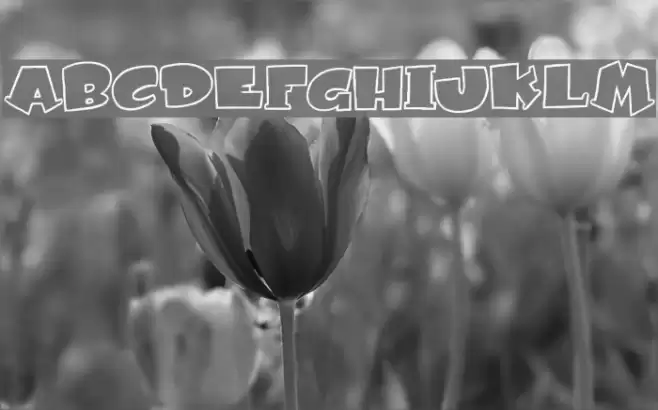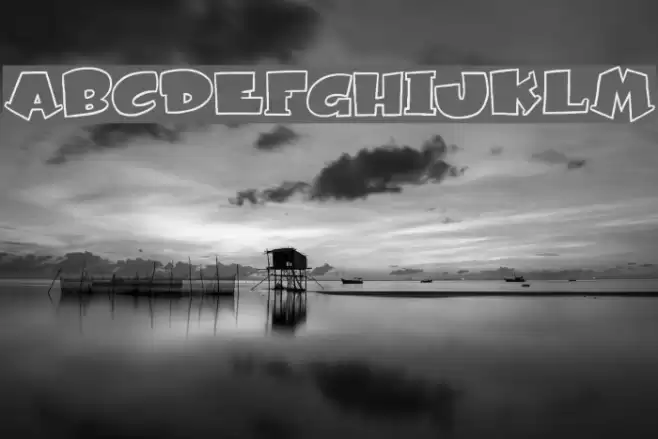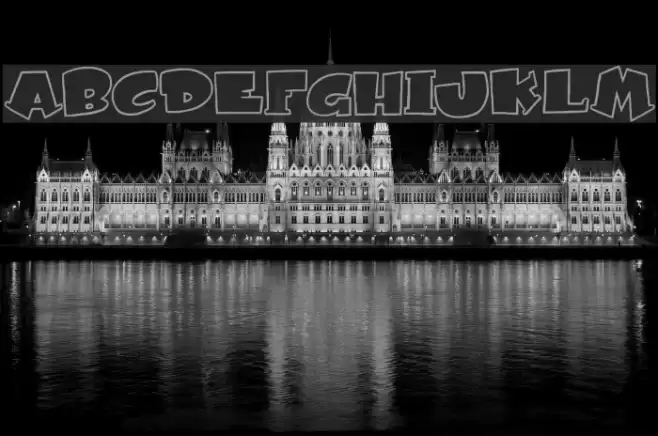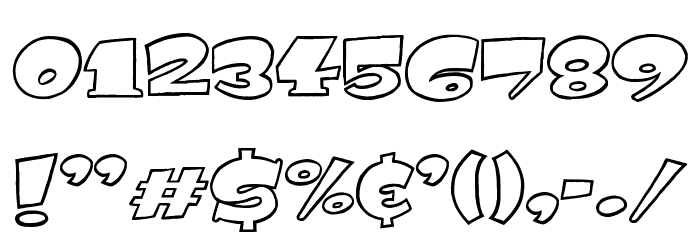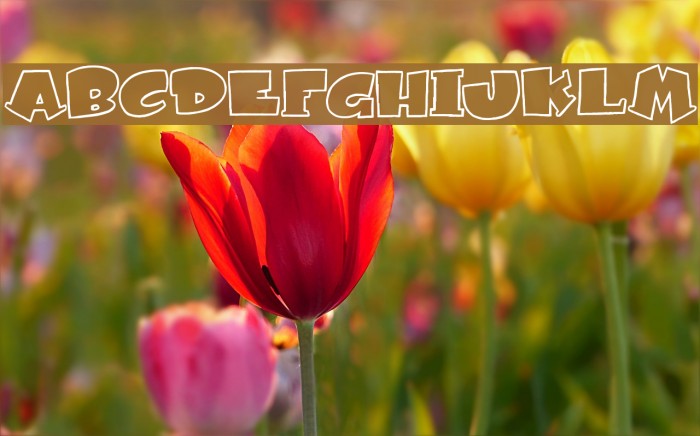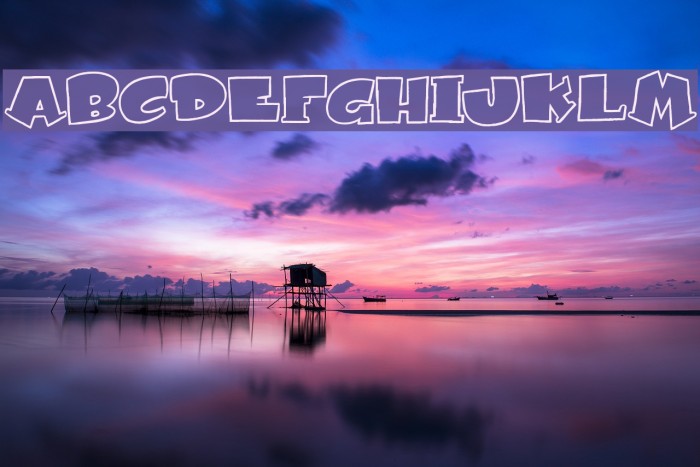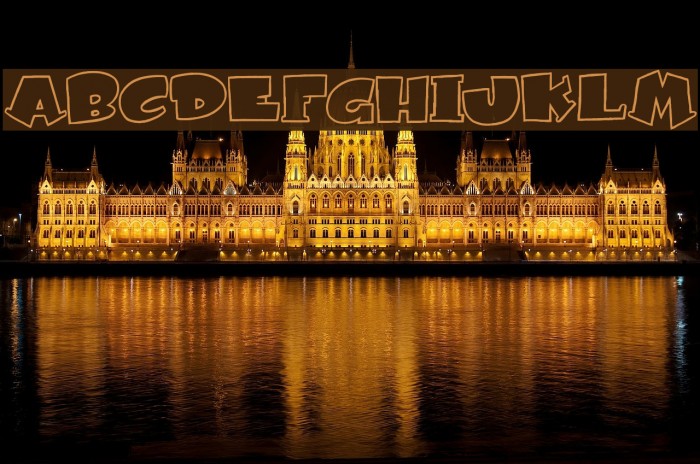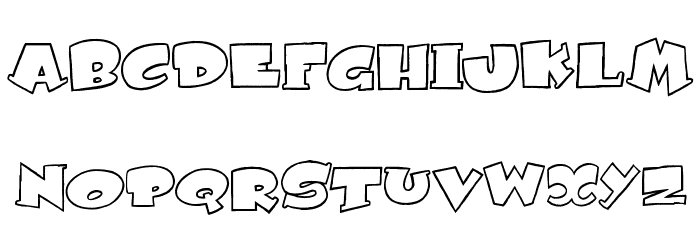
Subito Font
Subito Description
This font features a bold, playful style with a cartoonish, hand-drawn appearance. The letters are characterized by thick, uneven strokes and exaggerated serifs, giving them a dynamic and energetic feel. The overall design is informal and whimsical, making it ideal for projects that require a fun and engaging visual element. The numbers and special characters maintain the same lively aesthetic, ensuring consistency across all text elements. This font is particularly suited for creative and artistic applications where a sense of humor and lightheartedness is desired.
A bold, playful font with a cartoonish, hand-drawn style from Cartoon fonts.
- Proposed Projects: Ideal for children's books, comic strips, playful branding, and event posters.
- Overall Style: Playful, Cartoonish
- Use Case: Headlines, Posters, Branding